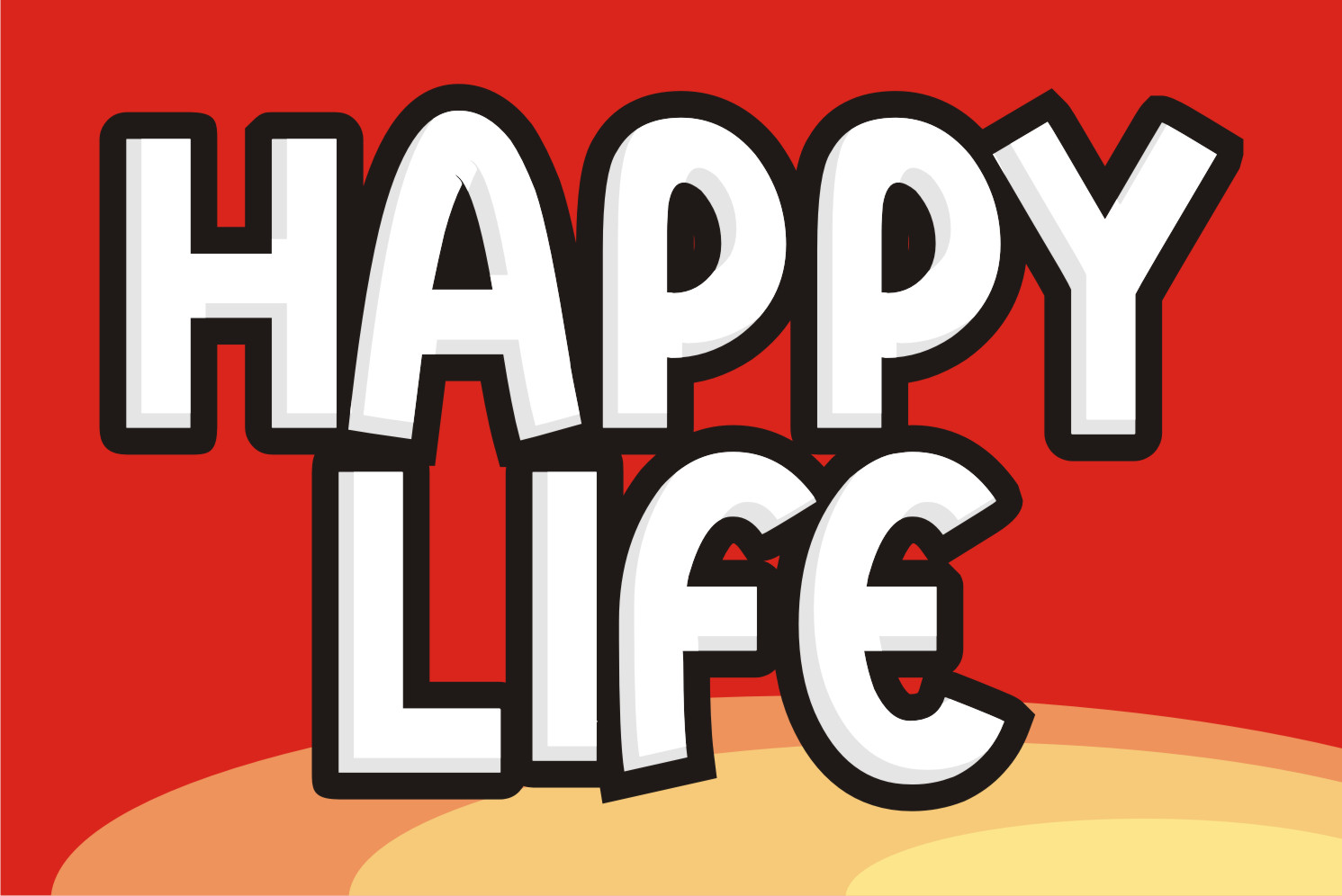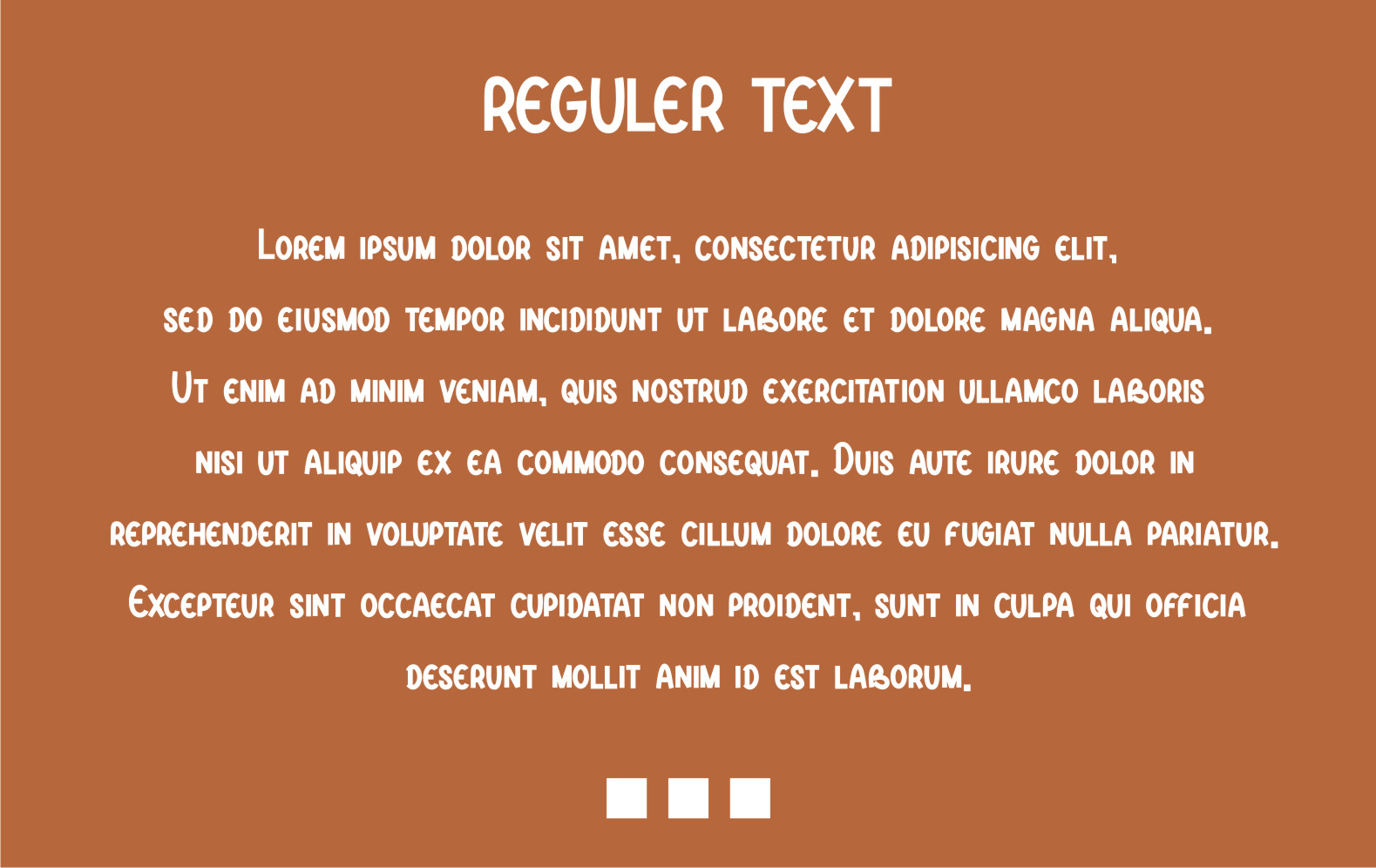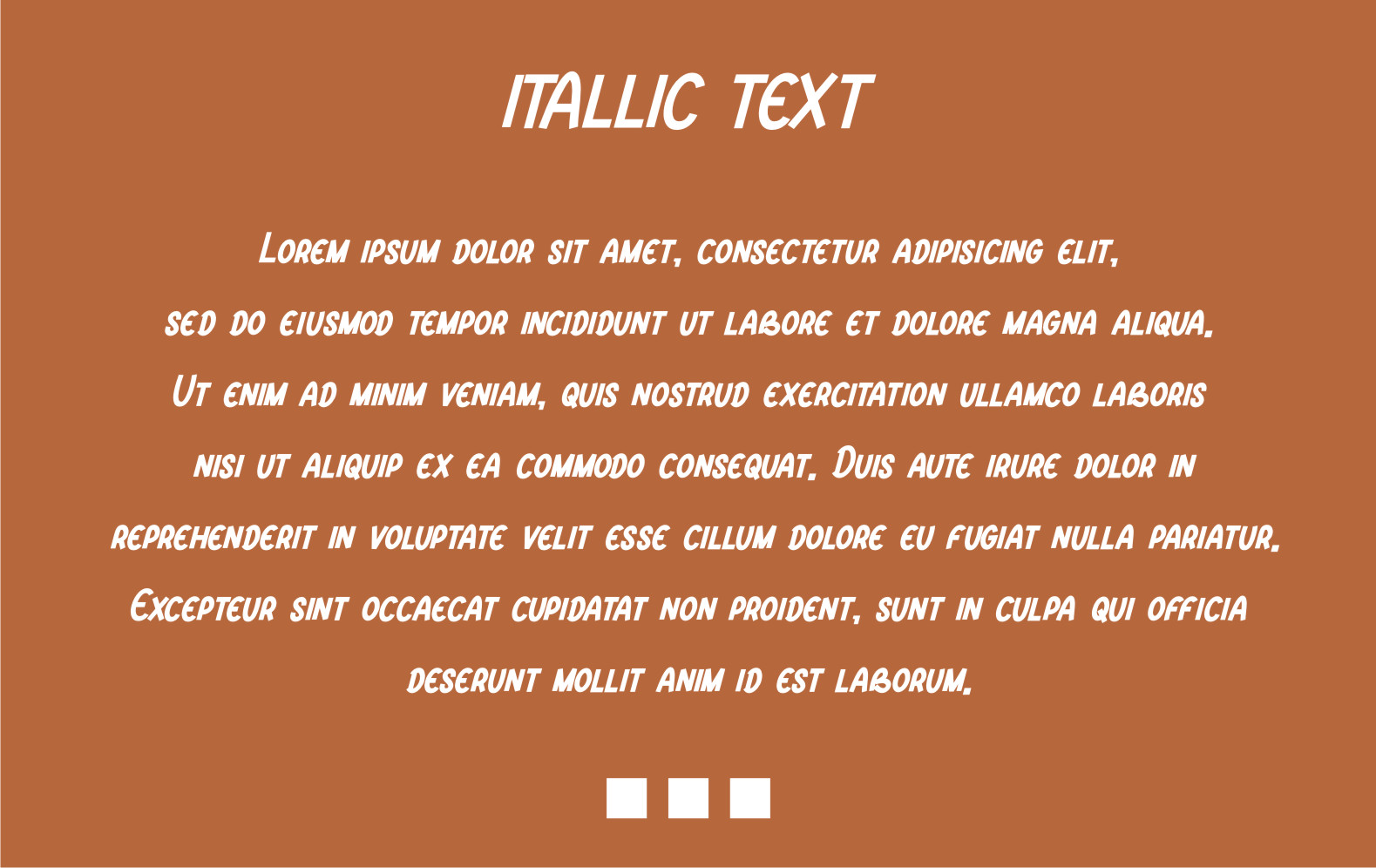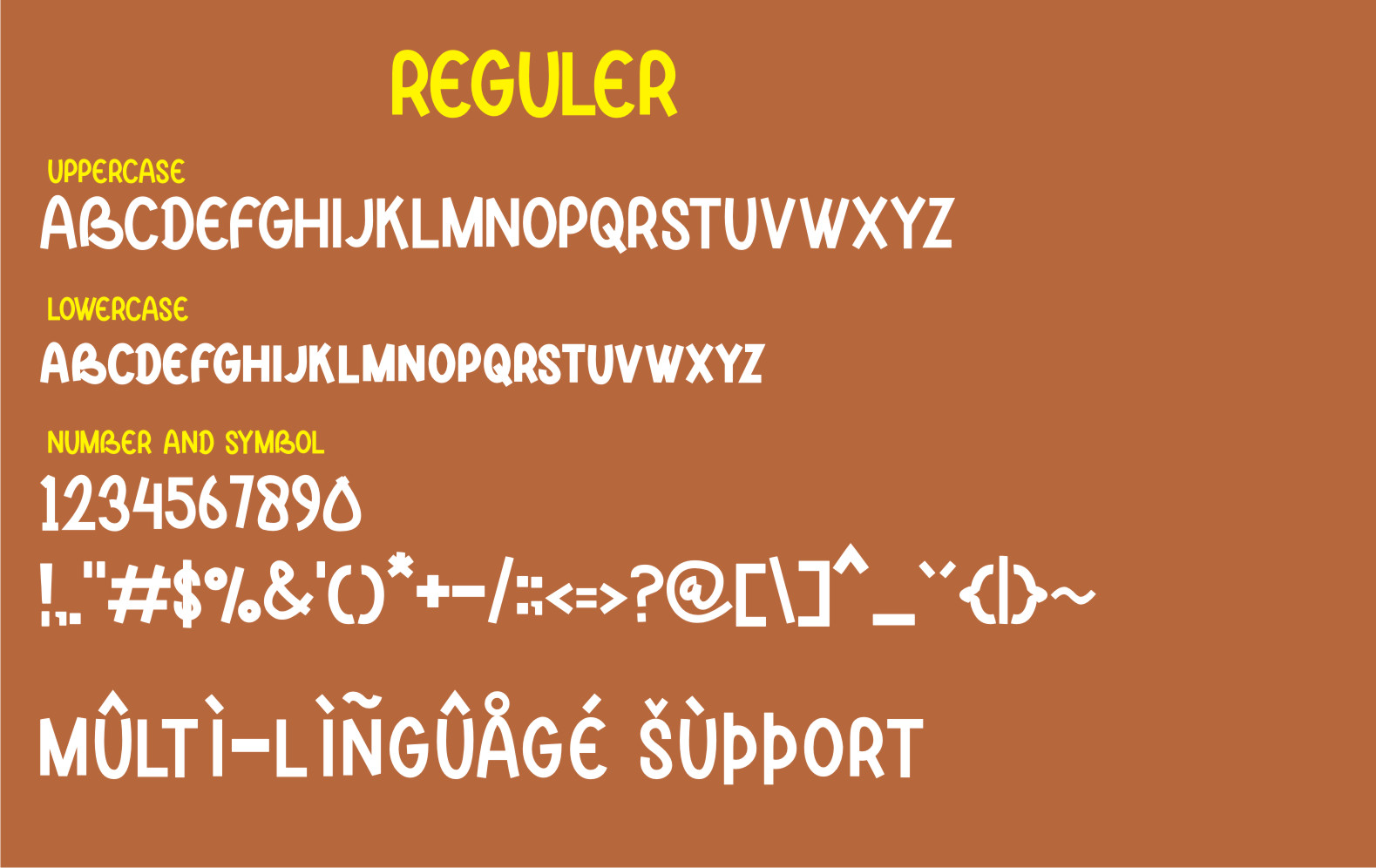
Names Font
Names Display Font
This is a cool and simple lettered display font. Its informal style and casual vibe make this font a go-to choice for each of your creations that require a relaxed touch.